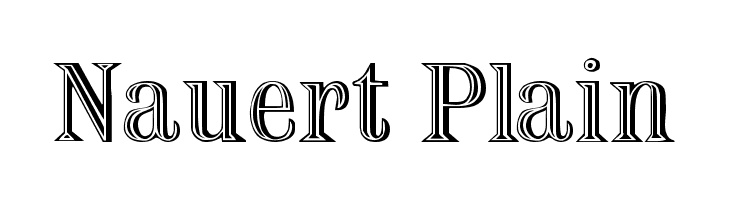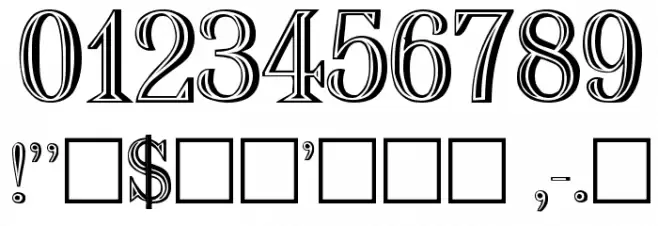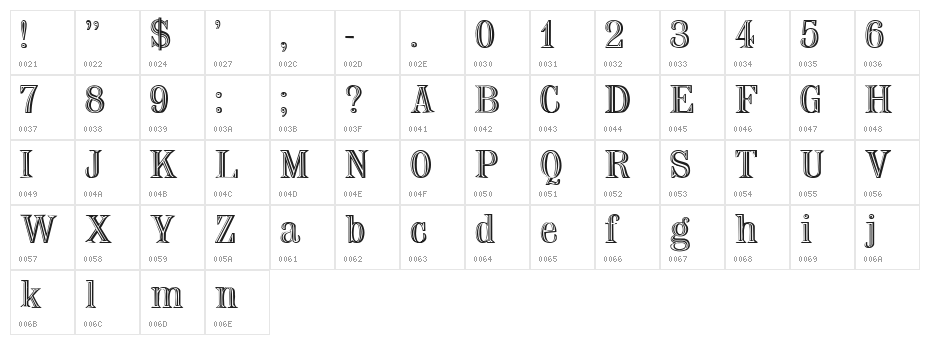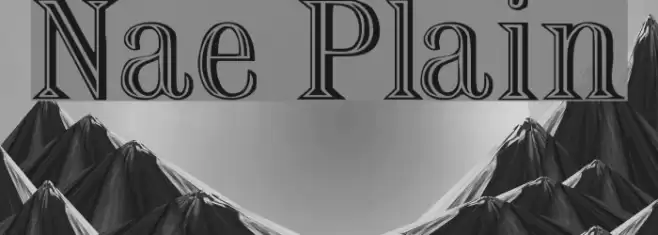
Nauert Plain Font
Nauert Plain Description
This font features a bold, decorative style with a distinct double-line outline that gives it a three-dimensional appearance. The uppercase letters are particularly striking, with strong vertical lines and subtle curves that add elegance. The lowercase letters maintain the same decorative outline, offering a cohesive look across different text sizes. Numbers are equally bold and follow the same design principles, ensuring readability while maintaining the decorative theme. Special characters are included, matching the overall style with their outlined design. This font is ideal for making a statement in any design project.